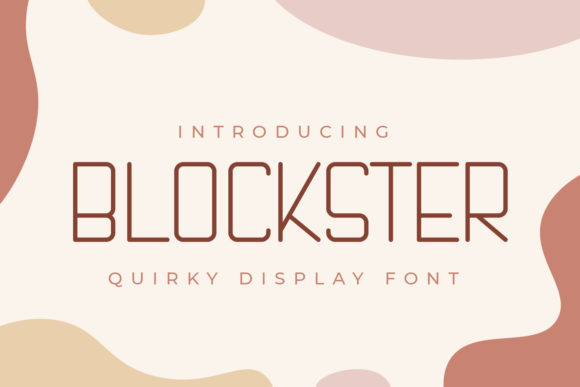
Introducing Blockster Font: The Ultimate Geometric Display Font for Modern Designers
In the world of typography, fonts play a crucial role in making or breaking a design. A perfect font can elevate your project from ordinary to extraordinary, while a poorly chosen one can have the opposite effect. For designers, crafters, and digital artists looking for a modern and trendy font, Blockster Font is an excellent choice. In this article, we’ll dive into the features and benefits of Blockster Font, and explore how it can enhance your creative projects.
What is Blockster Font?
Blockster Font is a cool, thin, and geometric display font that exudes a perfect amount of trendiness. Its sleek and modern design makes it an ideal choice for a wide range of applications, from digital designing and presentations to crafting and greeting cards making. The font’s geometric shape and clean lines give it a sophisticated look that’s sure to impress.
Key Features of Blockster Font
• Geometric Design: Blockster Font features a geometric design with clean lines and sharp edges, making it perfect for modern and trendy designs.
• Thin and Elegant: The font’s thin and elegant design makes it suitable for a wide range of applications, from digital designing to crafting and greeting cards making.
• Display Font: Blockster Font is a display font, designed to make a statement and grab attention.
• Trendy and Modern: The font’s trendy and modern design makes it perfect for designers and crafters who want to create unique and stylish projects.
Benefits of Using Blockster Font
• Versatility: Blockster Font is versatile and can be used for a wide range of applications, from digital designing and presentations to crafting and greeting cards making.
• High-Quality Design: Blockster Font features a high-quality design that’s sure to impress your audience.
• Unique and Stylish: The font’s unique and stylish design makes it perfect for designers and crafters who want to create something different.
Use Cases for Blockster Font
Blockster Font is perfect for a wide range of applications, including:
• Digital Designing: Use Blockster Font to create stunning digital designs, from social media graphics to website headers.
• Presentations: Add a touch of elegance and sophistication to your presentations with Blockster Font.
• Crafting: Use Blockster Font to create beautiful and unique craft projects, from greeting cards to scrapbooking.
• Greeting Cards Making: Create stunning greeting cards with Blockster Font and make your loved ones feel special.